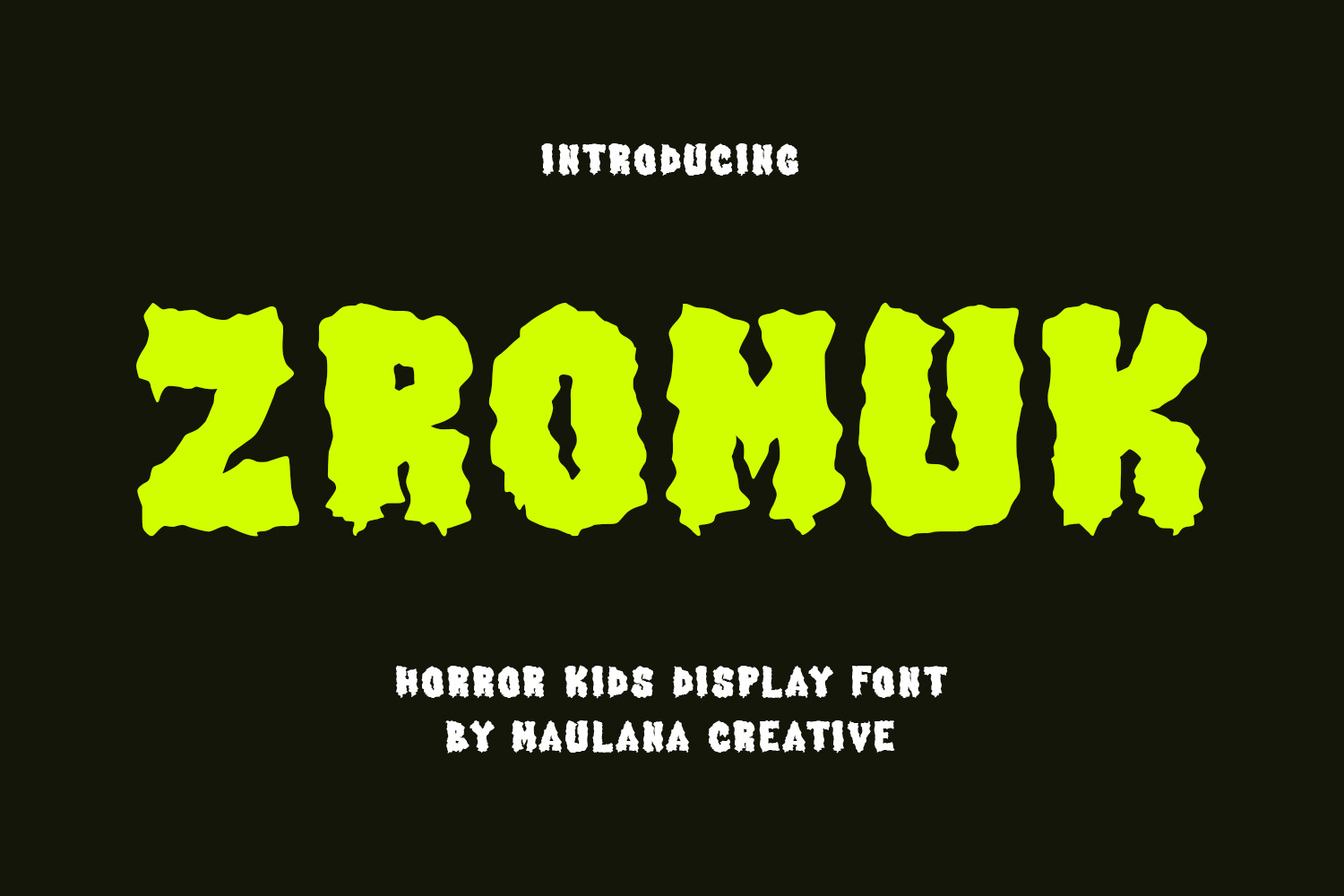
Zromuk Zombie Kids Game Font
Zromuk is a handwritten kids trendy horror display font. With simple stroke and fun character. To give you an extra creative work "Zromuk" font support multilingual more than 100+ language. This font is good for logo design, Social media, Movie Titles, Books Titles, a short text even a long text letter and good for your secondary text font with sans or serif. Make a stunning work with Zromuk font.